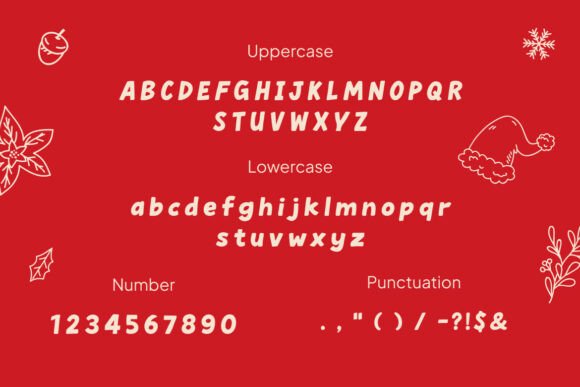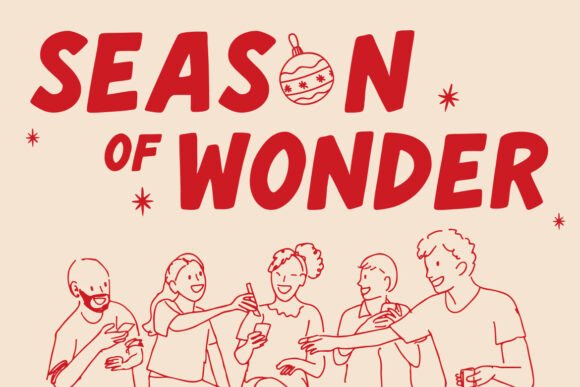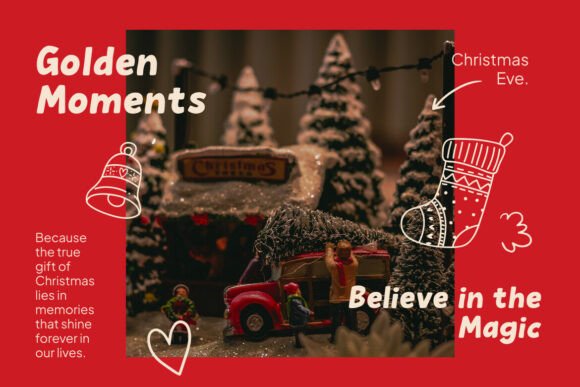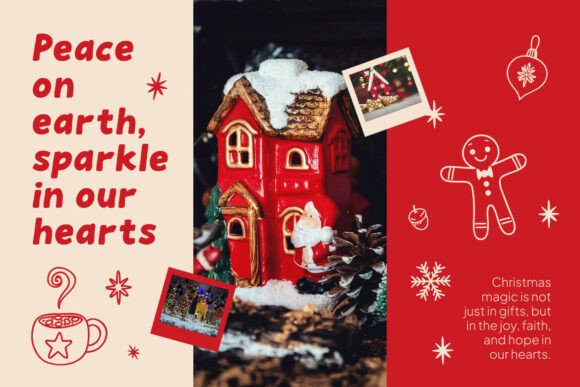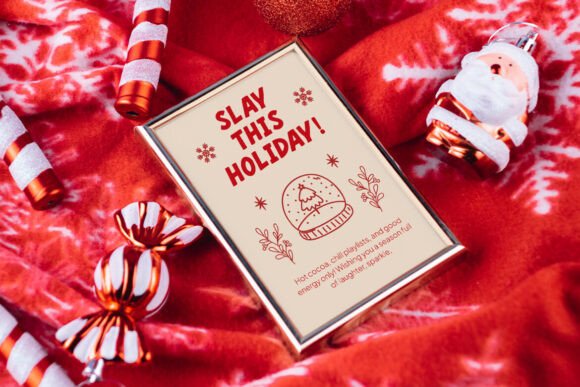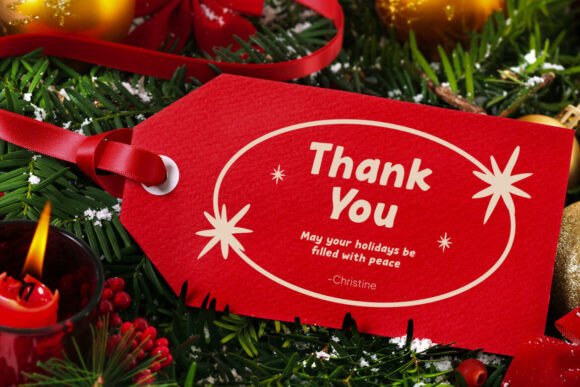
Introduction to Merry Candy Font
As a designer, there’s nothing quite like the rush of excitement that comes with brainstorming a new project. For many of us, it starts with a spark of inspiration – perhaps a trip to the candy store, or a holiday cookie baking session with loved ones. For me, it was a chilly winter morning, curled up with a warm cup of hot cocoa and a box of marshmallow treats. And that’s when it hit me: the perfect font to capture the essence of the holiday season – Merry Candy Font.
This delightful sans serif font is more than just a design resource – it’s a tool to help you infuse your projects with a sense of fun and whimsy. With its thick, rounded letterforms and approachable silhouette, Merry Candy Font is the ultimate choice for children’s holiday books, candy shop branding, and joyful social media graphics. And the best part? It’s available for free download, making it an accessible addition to any creative project.
Whether you’re working on a high-quality design for a client or a personal project, Merry Candy Font is sure to bring a smile to your face and a touch of magic to your design. With its transparent background and bold personality, it’s the perfect way to add some extra cheer to your winter designs.
Key Features of Merry Candy Font
- High-quality, vector-based design for crisp and clear display
- Transparent background for seamless integration into creative projects
- Perfect design resource for festive and holiday-themed designs, such as Christmas, New Year’s, and Valentine’s Day
- Available in various sizes and resolutions, including 300 DPI and scalable vector graphics
- Unique, hand-drawn style with intricate details and textures for a one-of-a-kind look
- Easy to customize and edit with various design software, including Adobe Illustrator and Photoshop
Honest Review: Merry Candy Font
I recently stumbled upon the Merry Candy Font, and I’m excited to share my thoughts on this design resource. The font is available for free download, which is a great bonus for those on a budget or just starting out with their creative project.
The Merry Candy Font comes with a transparent background, making it easy to customize and pair with other design elements. The font itself is quite versatile, with a playful and whimsical feel that’s perfect for holiday-themed projects or anything that needs a touch of magic.
Here are some things that work well with the Merry Candy Font:
- ✨ High-quality design: The font is well-designed and visually appealing, making it a great addition to any creative project.
- ✨ Versatility: The font can be used for a wide range of projects, from holiday cards to party invitations.
- ⚠️ Limited character set: The font only comes with a limited character set, which may not be suitable for longer text-based projects.
- ⚠️ Not suitable for formal projects: The font’s playful and whimsical feel may not be suitable for more formal or professional projects.
Overall, I’m impressed with the Merry Candy Font, and I think it’s a great addition to any designer’s toolkit. While it may have some limitations, the font’s high quality and versatility make it a great resource for creative projects.
Merry Candy Font
The Merry Candy Font is a free design resource ideal for creative projects that require a playful and festive touch. With its transparent background and high-quality design, this font is perfect for adding a pop of color to your next project.
Tips for Getting the Most Out of Merry Candy Font
Use the Merry Candy Font to add a playful touch to your designs. Experiment with different font sizes and colors to create a unique look. You can also pair the font with other design elements, such as graphics and images, to create a cohesive design.
The Merry Candy Font is perfect for a variety of creative projects, including holiday cards, party invitations, and social media graphics. You can also use it to create custom logos, branding materials, and more.